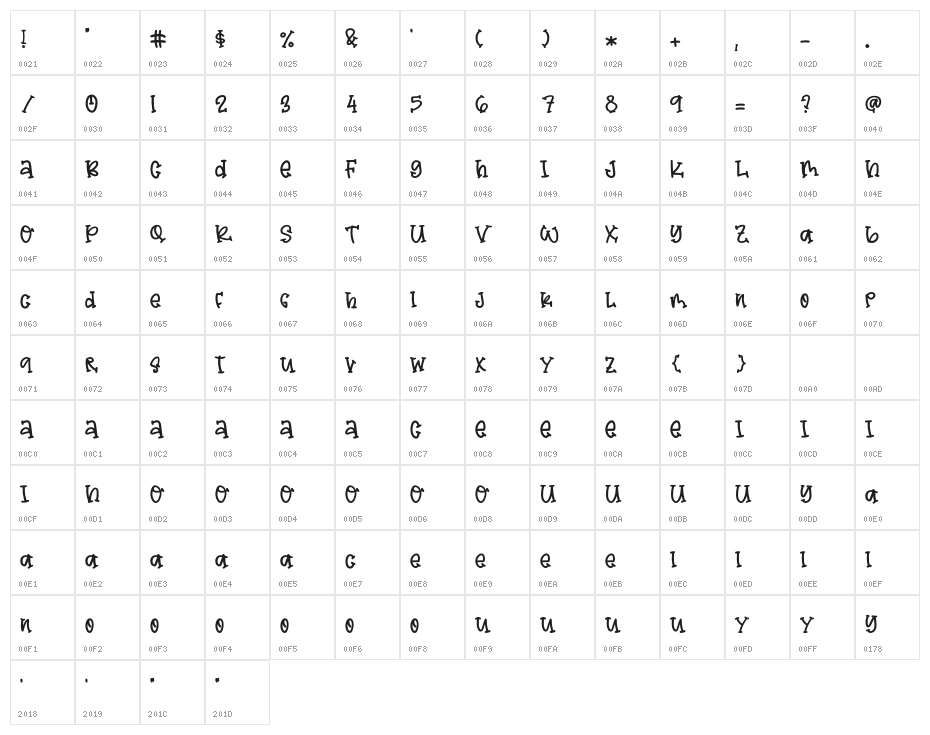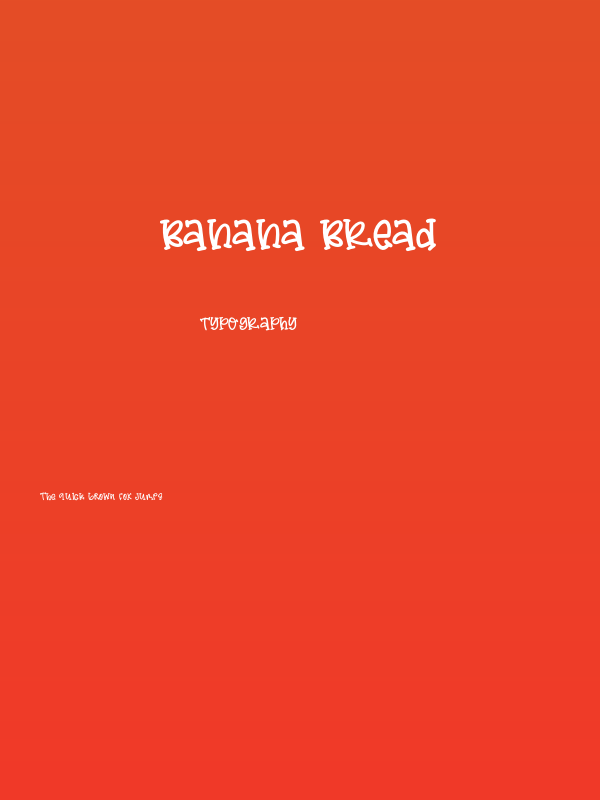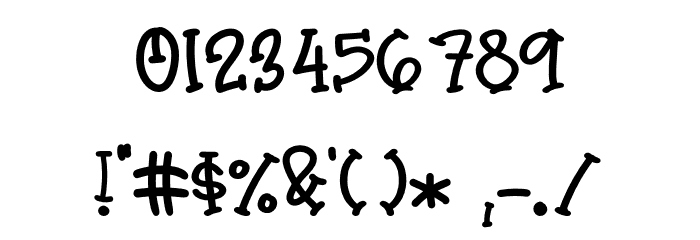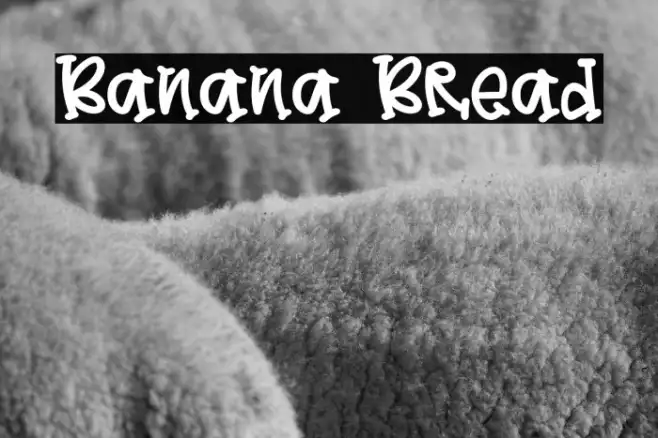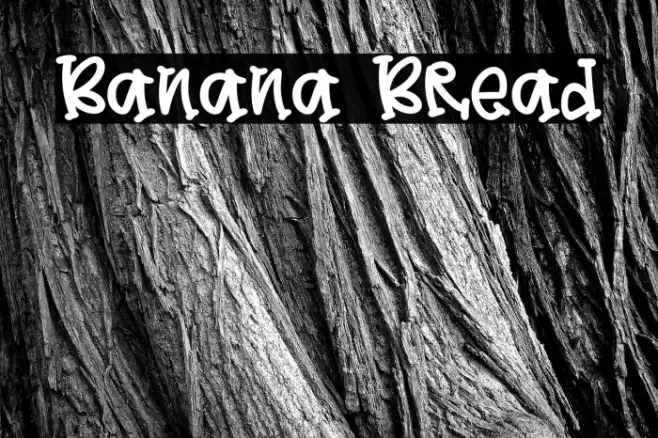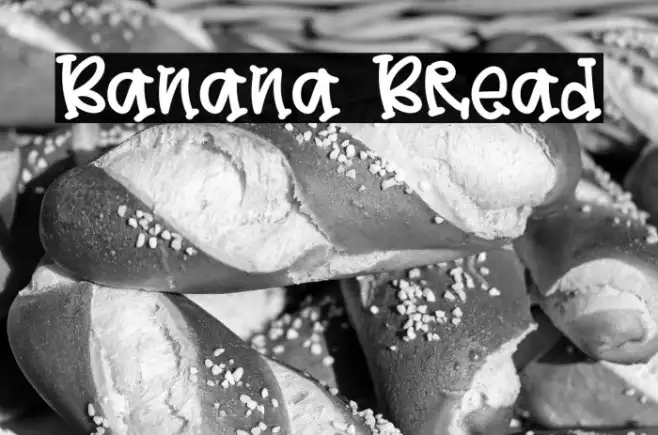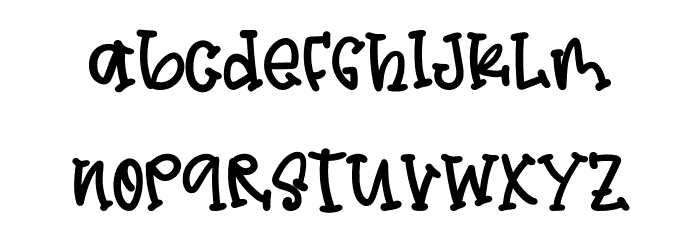
Banana Bread Font
Banana Bread Description
This playful and whimsical font features a hand-drawn style with a cartoonish flair. Each character is uniquely crafted with exaggerated curves and a slightly uneven baseline, giving it a lively and informal appearance. The letters are bold and rounded, with a consistent stroke width that maintains readability while adding a touch of fun. The font includes a full set of uppercase and lowercase letters, numbers, and a variety of special characters, making it versatile for creative projects. Its distinctive style is perfect for adding a personal touch to designs.